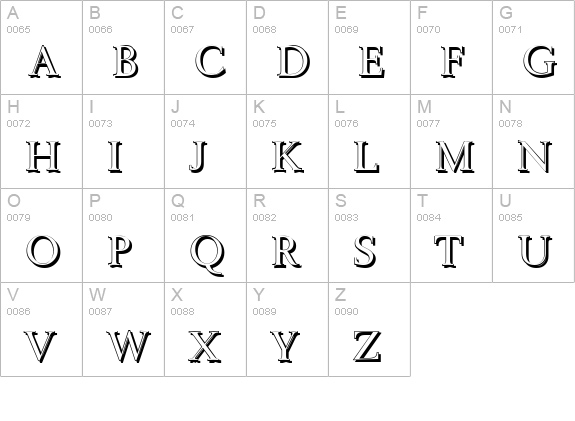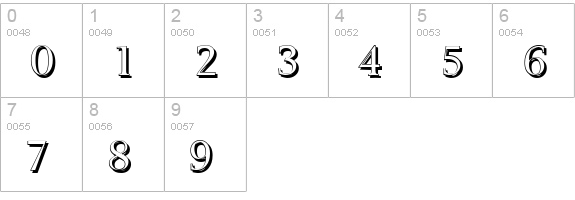
BelfastShadow-Regular Font Details
BelfastShadow-Regular is the standard, neutral variant in the BelfastShadow typeface family \xE2\x80\x94 well suited to general body text, paragraphs, and standard typographic work.
BelfastShadow-Regular font is a versatile and elegant typeface that adds a touch of sophistication to any design project. Its sleek and modern appearance makes it perfect for a wide range of applications, from branding to editorial design. The clean lines and balanced spacing of BelfastShadow-Regular font make it easy to read and visually appealing. This stylish font is available for free download at FontsMarket.com, allowing you to access its full range of features without any cost. Whether you're a designer looking to elevate your projects or a business owner in need of a fresh new look, BelfastShadow-Regular font is the perfect choice. Download it today and add a touch of class to your designs.